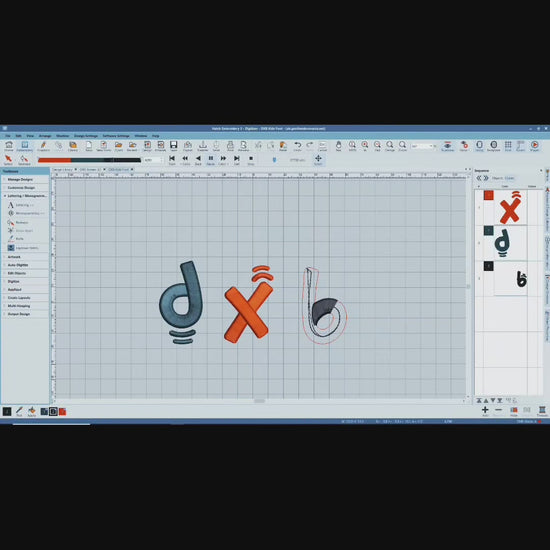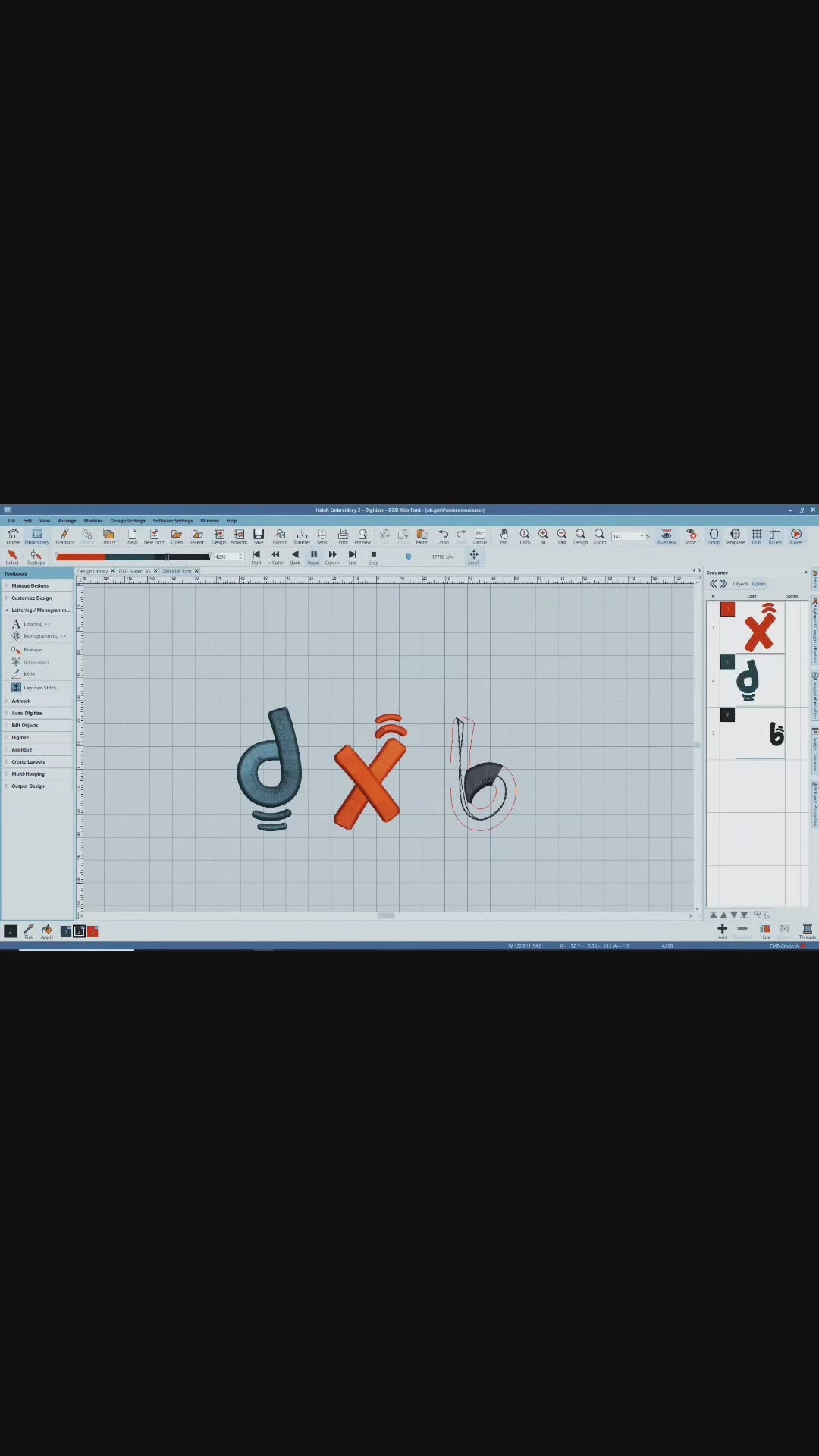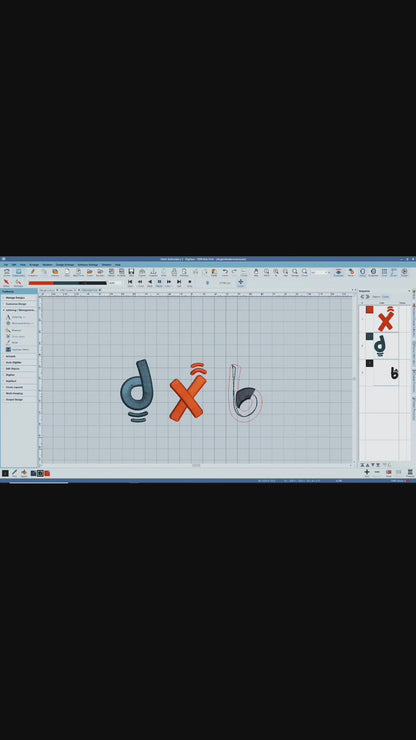
Playful 3D Puff Font
Bring fun to embroidery projects with our Playful Kids 3D Puff Font! Featuring bright, chunky letters and numbers in a rainbow of colors, this font is perfect for kids’ caps, backpacks, clothing, and custom gifts.
Each design pops with raised texture and cheerful style—expertly embroidered in Dubai for the happiest, high-quality finish.